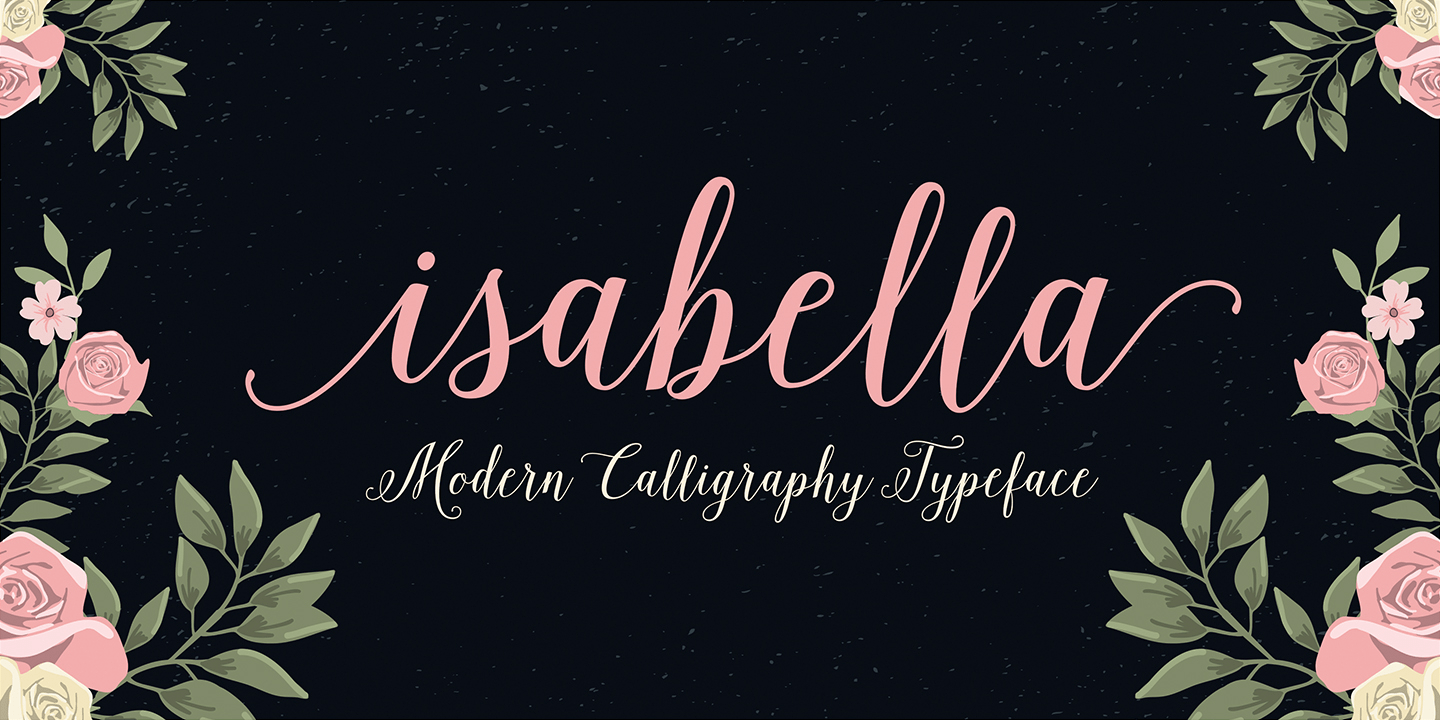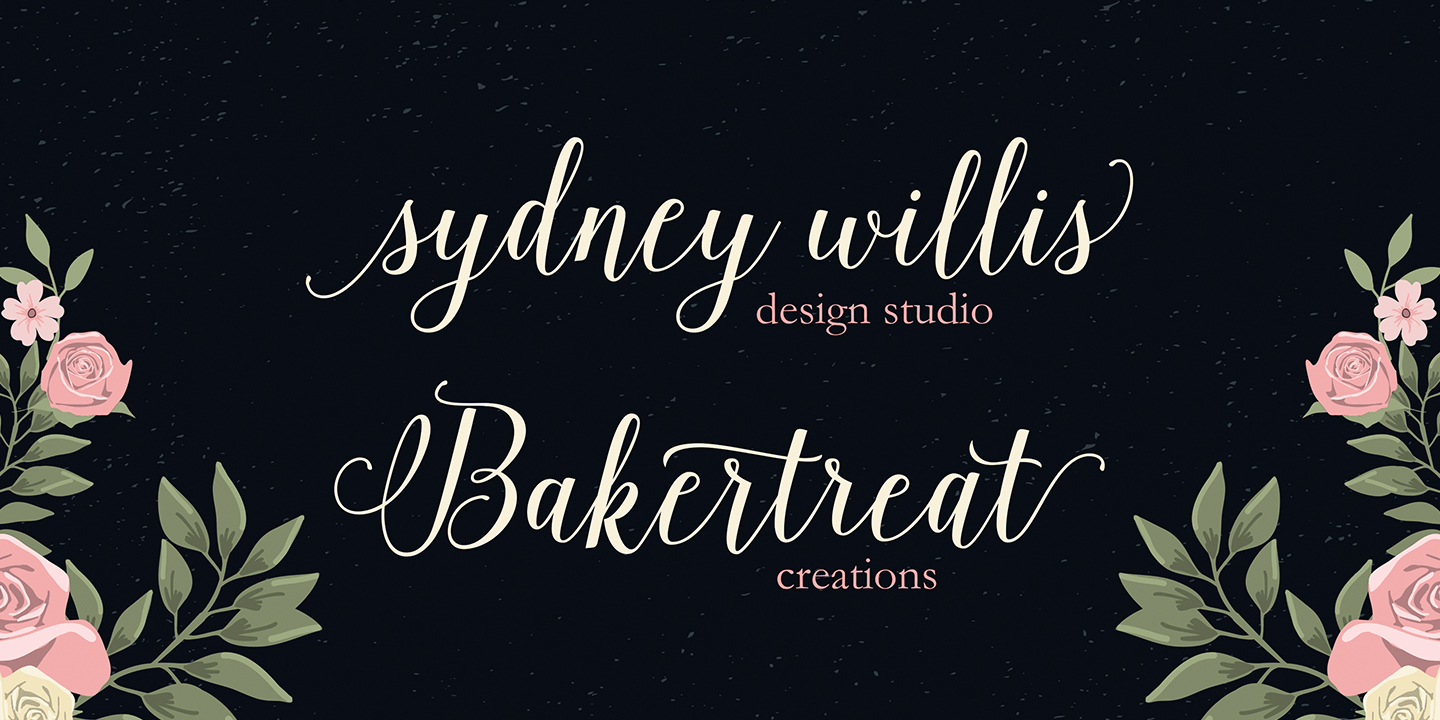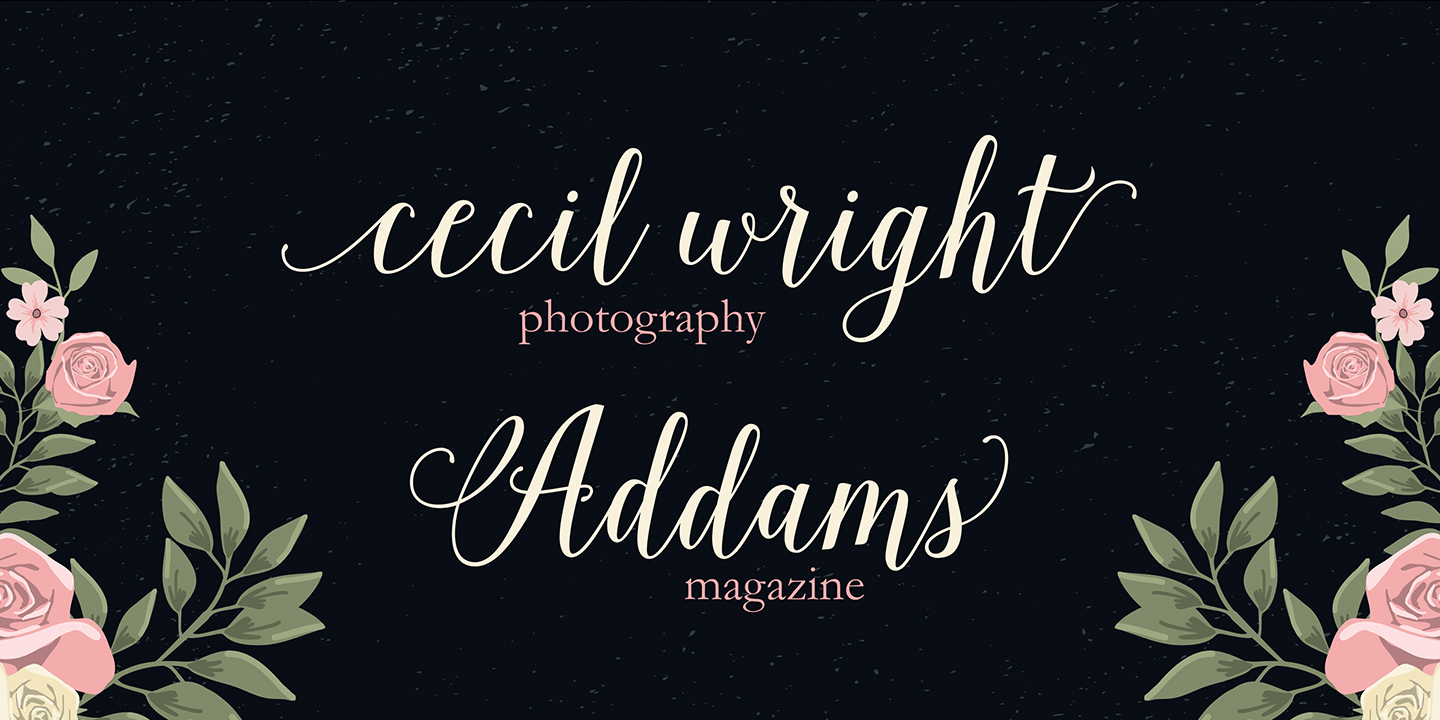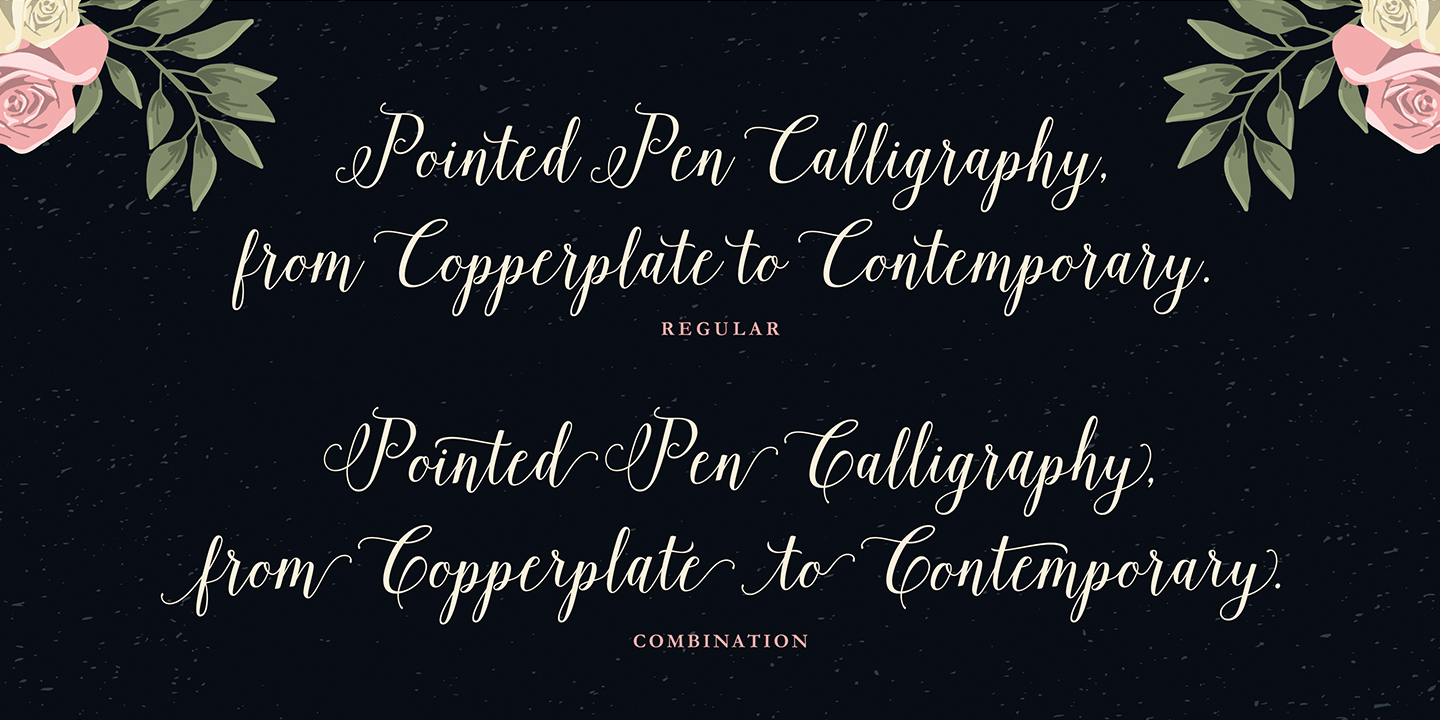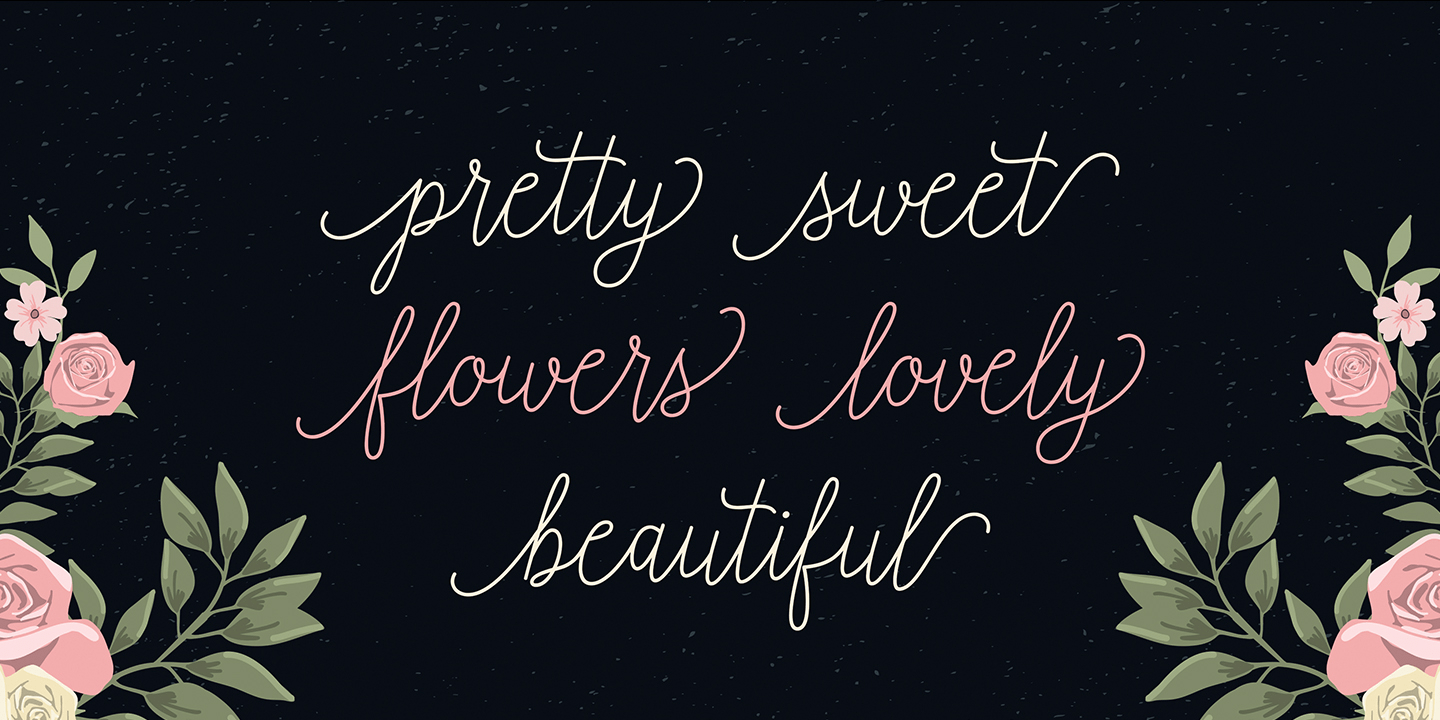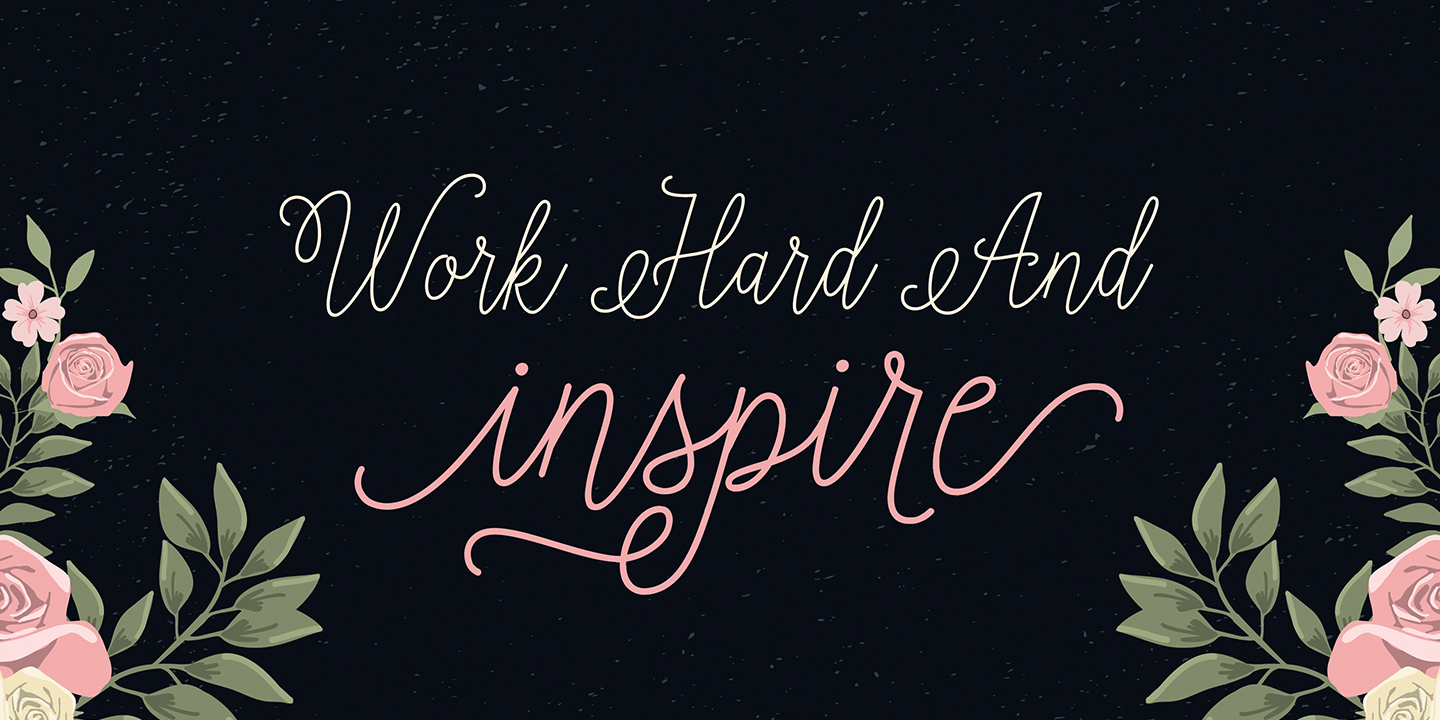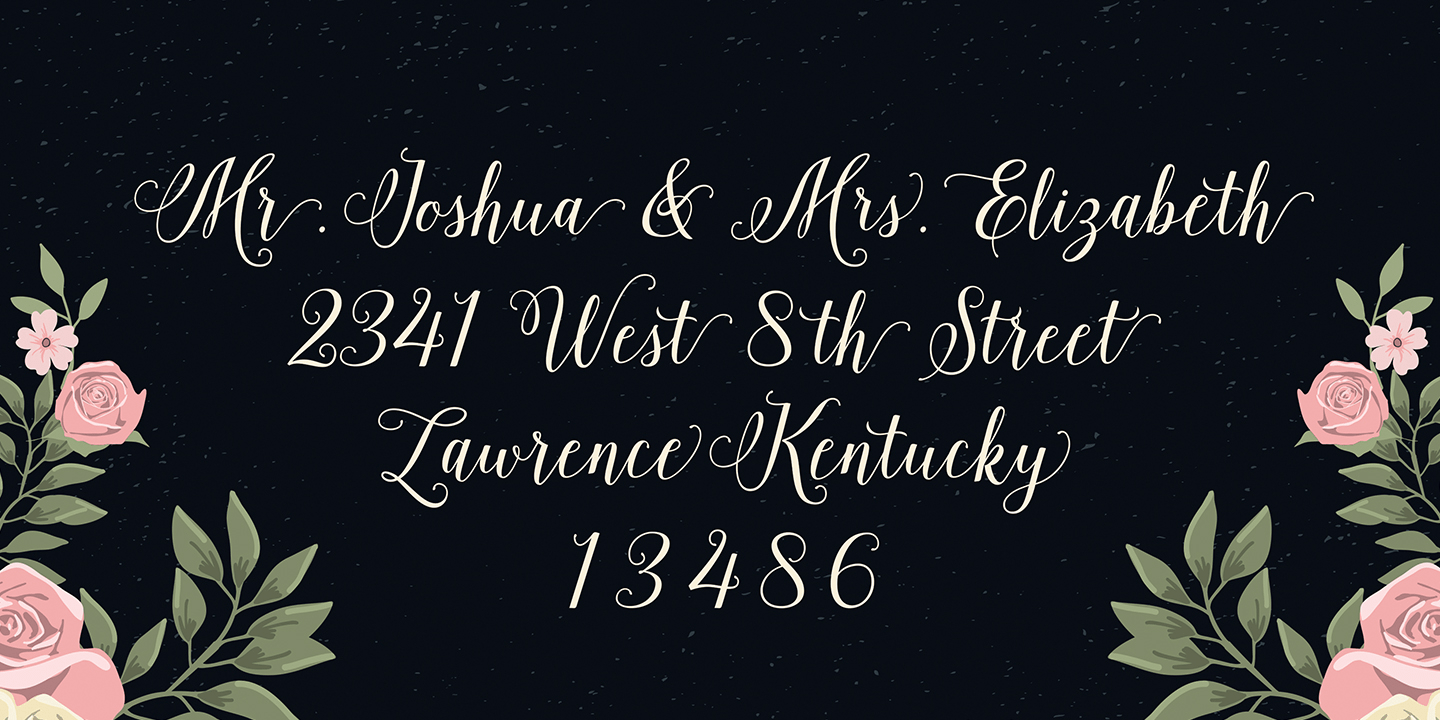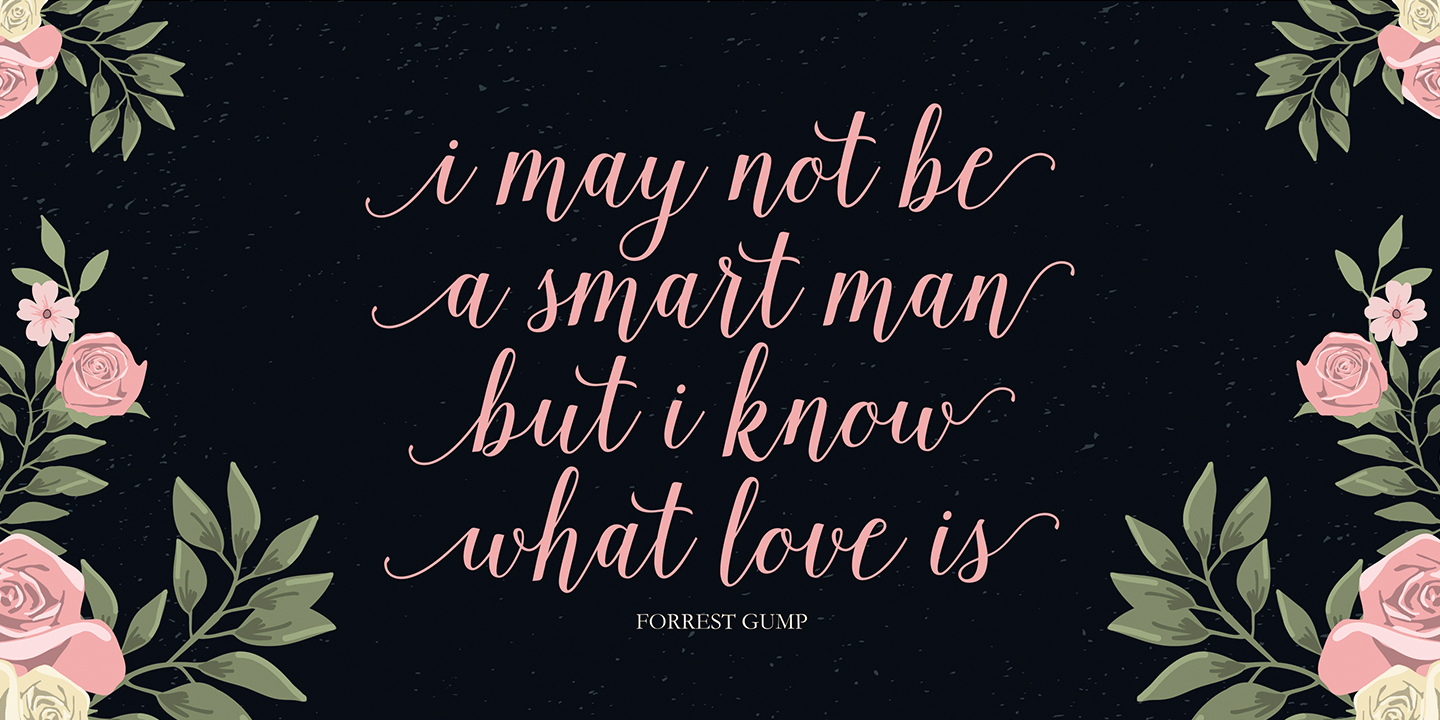
Isabella Script
Isabella Script is handwritten stylish copperplate calligraphy font. From copperplate to contemporary with a dancing baseline, and classic and elegant touch, it can be used for various purposes such as headings, signature, logos, wedding invitation, t-shirt, letterhead, signage, labels, news, posters, badges etc.
Isabella Script features 420+ glyphs and 169 alternate characters, including OpenType Stylistic alternates, ligatures and multiple language support. To enable the OpenType Stylistic alternates, you need a program that supports OpenType features such as Adobe Illustrator CS, Adobe Photoshop CC (With Glyphs Panel), Adobe Indesign & CorelDraw X6-X7, Microsoft Word 2010 or later versions.